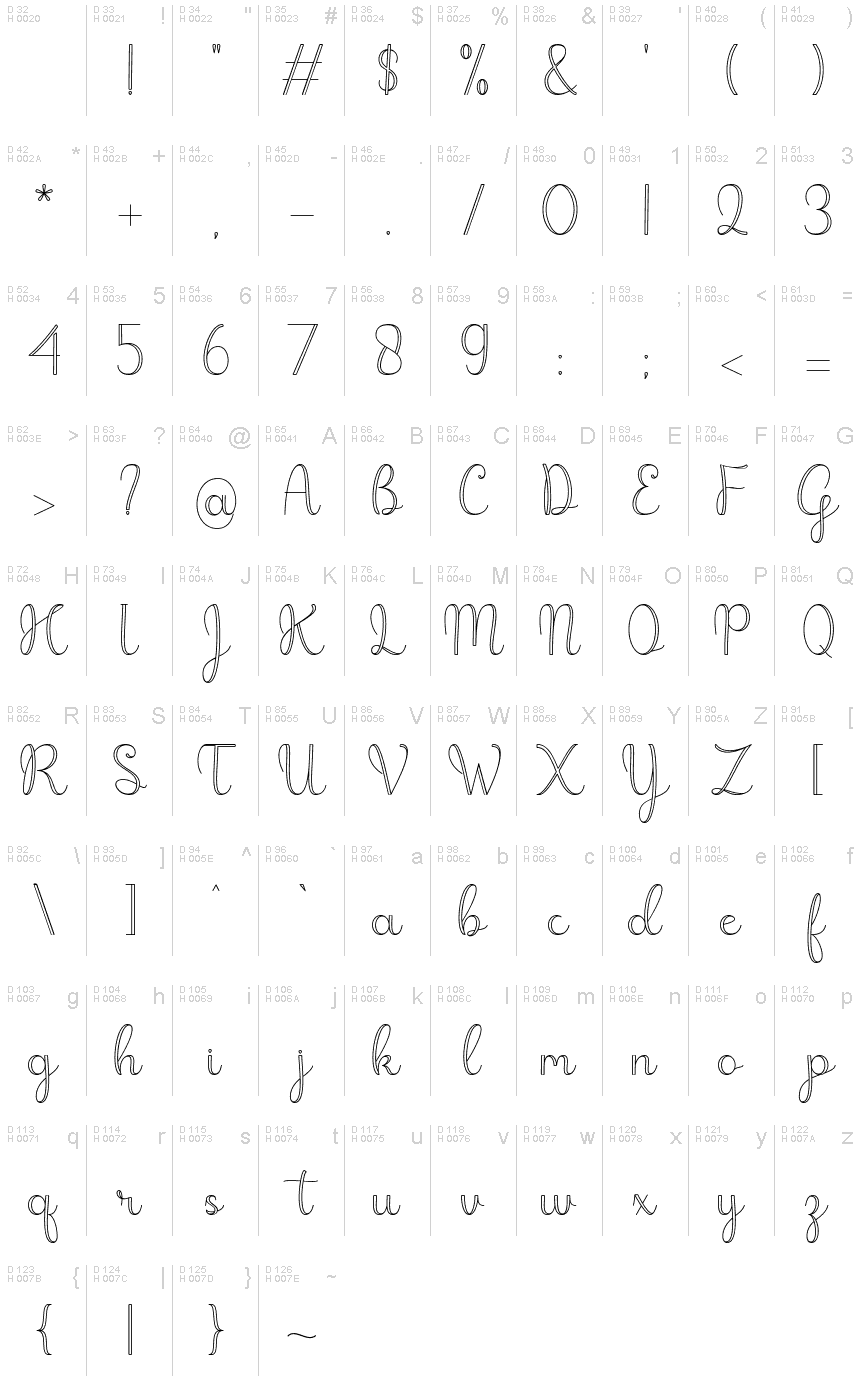
Lolita
Lolita, designed by Hardiboy Design, is a captivating semi-light font that exudes elegance and charm. With its beautiful handwritten style, it adds a touch of sophistication to any project.
Perfect for wedding invitations, greeting cards, and personal stationery, Lolita brings a romantic flair to your designs. Its delicate strokes and graceful curves make it ideal for feminine branding materials such as beauty products or fashion magazines. Whether creating logos or social media graphics, this enchanting font will effortlessly elevate your visual content with its timeless allure.